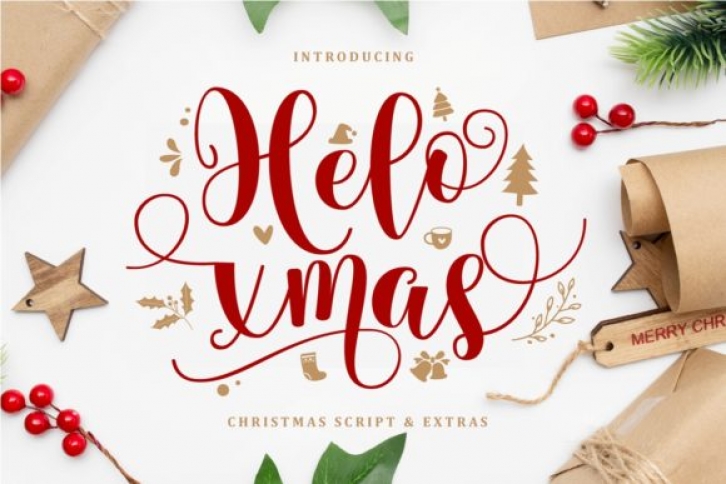
Hello Xmas is a warm and festive handwritten font. It is ideal for holiday-themed greeting cards and for any crafting project that requires a romantic touch. This font is PUA encoded which means you can access all of the glyphs and swashes with ease!